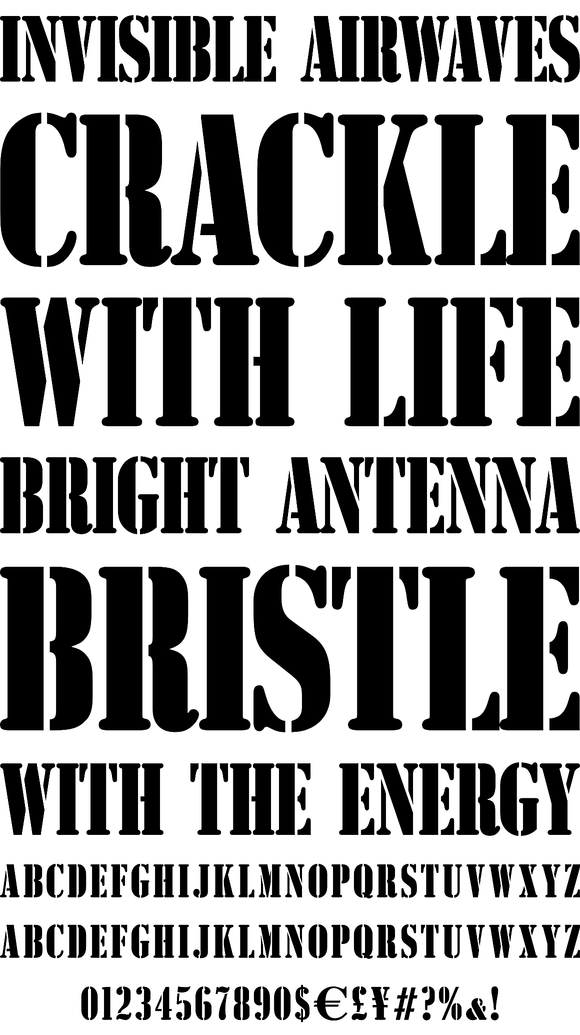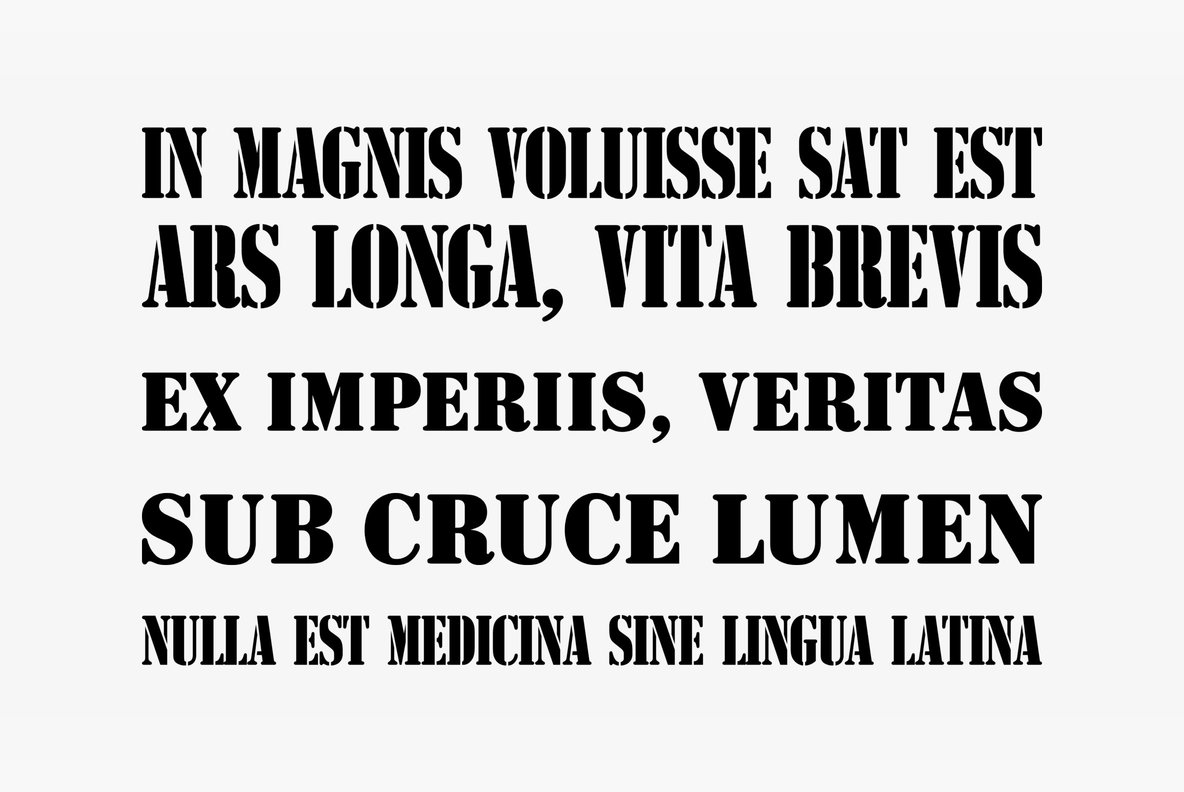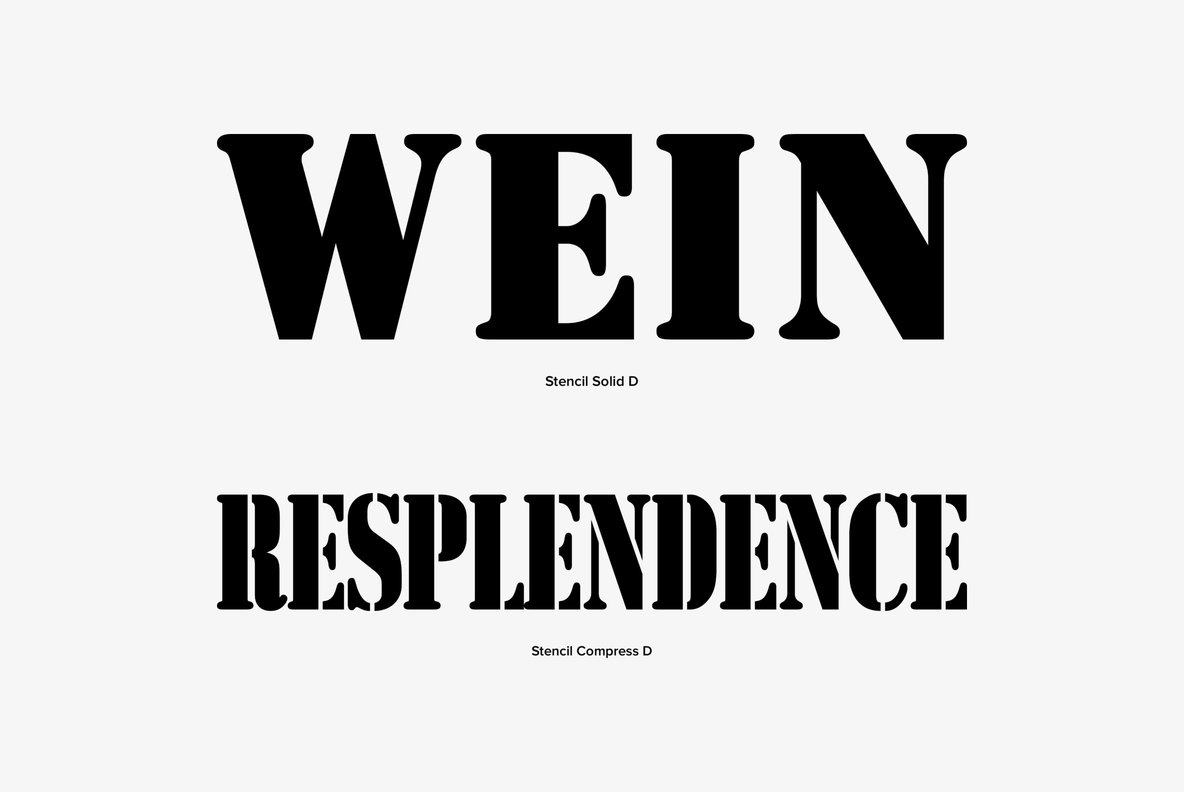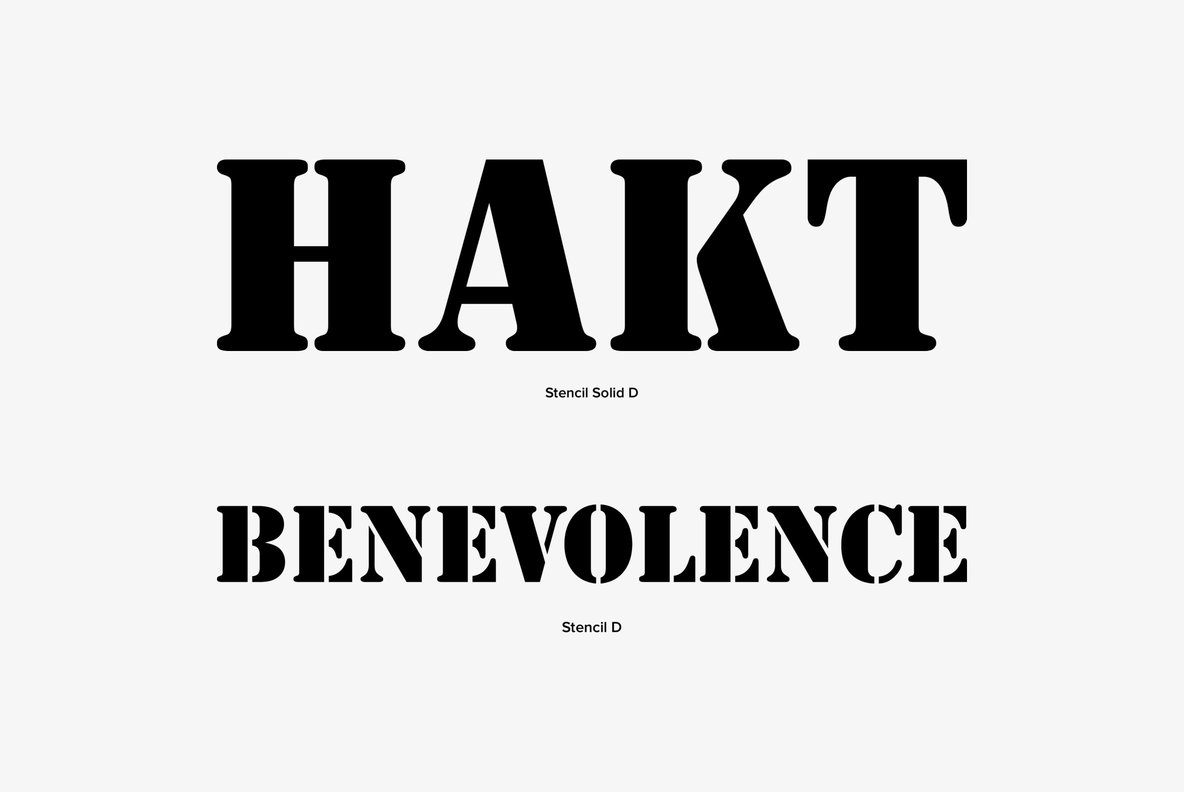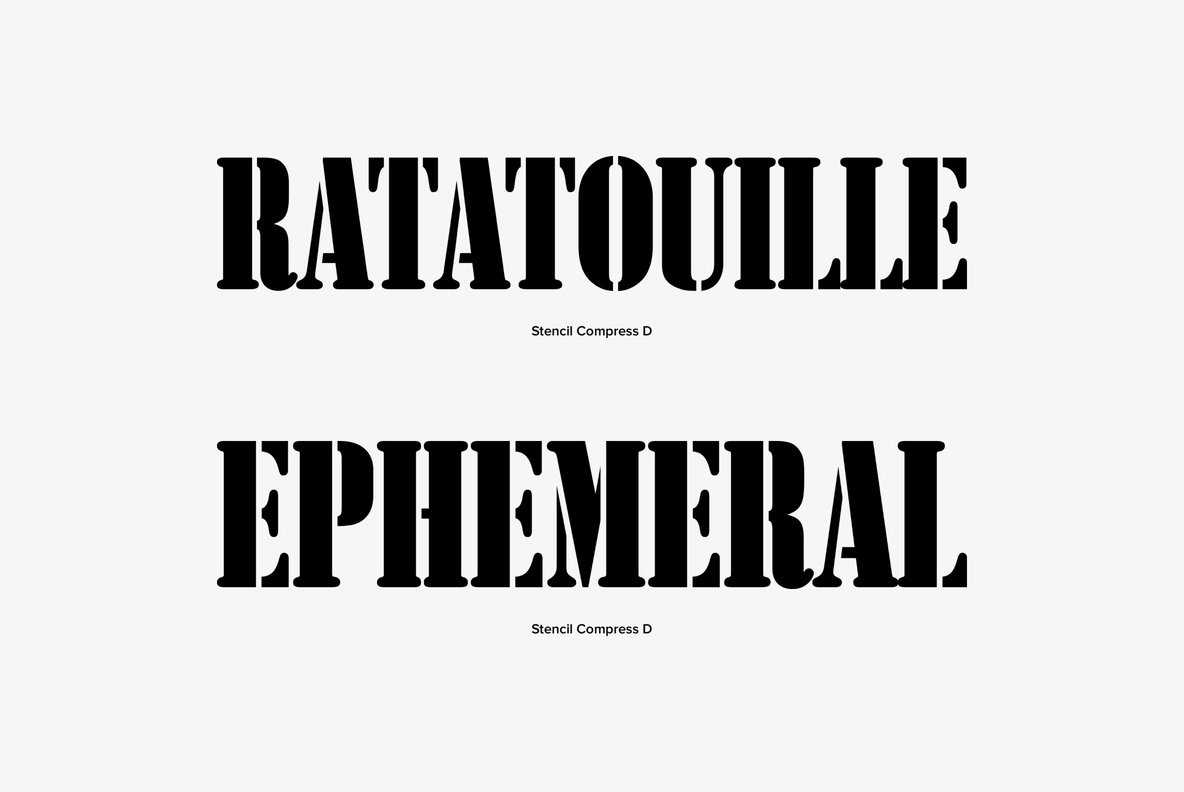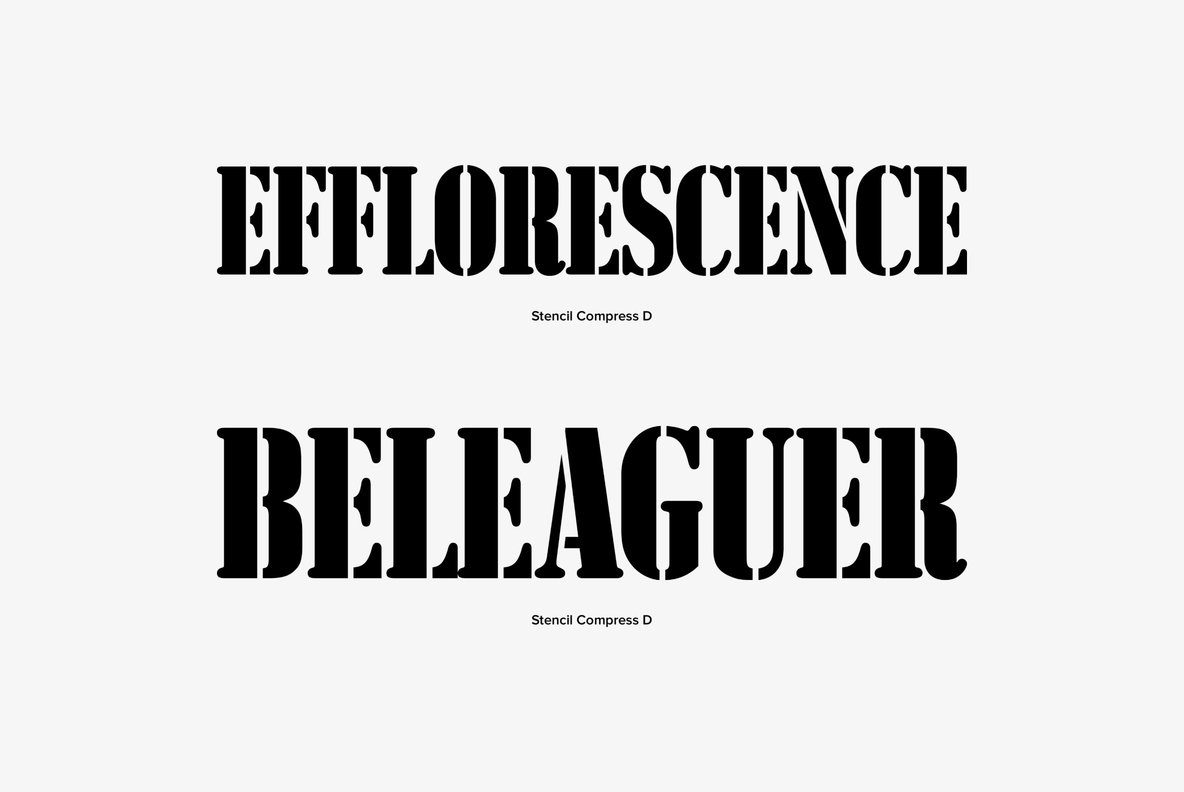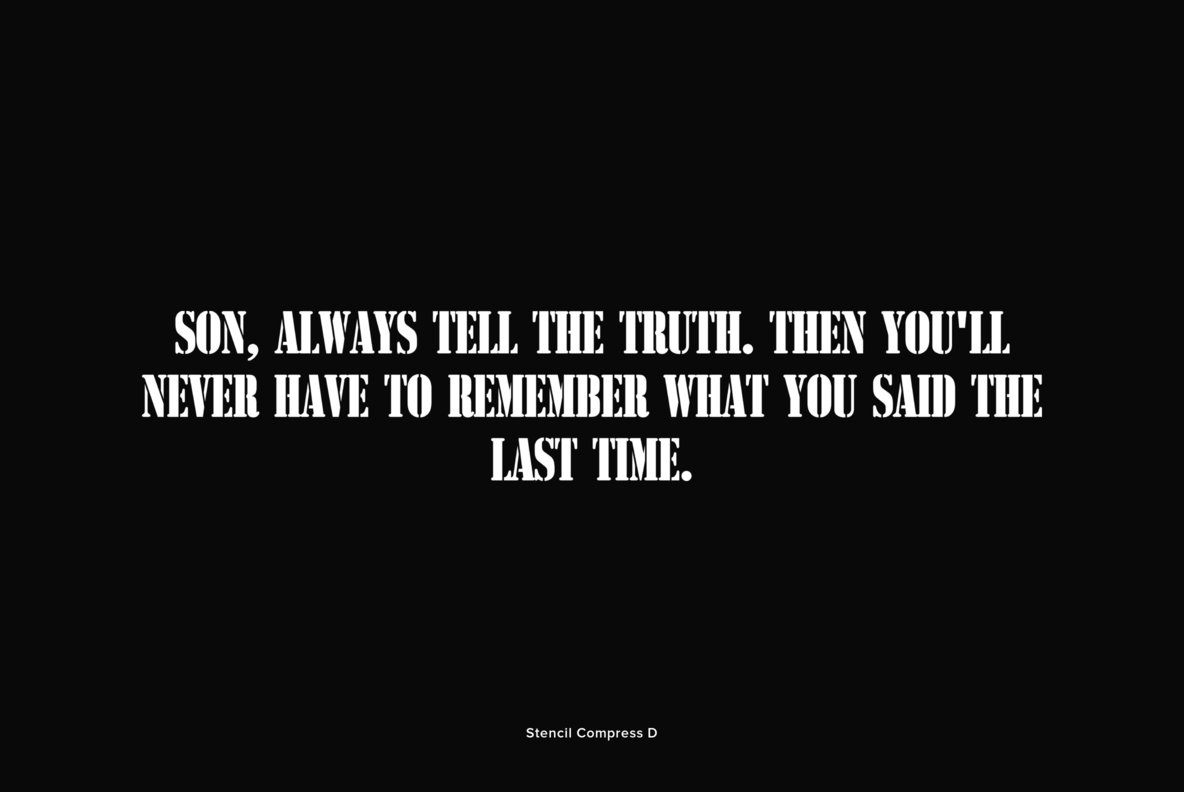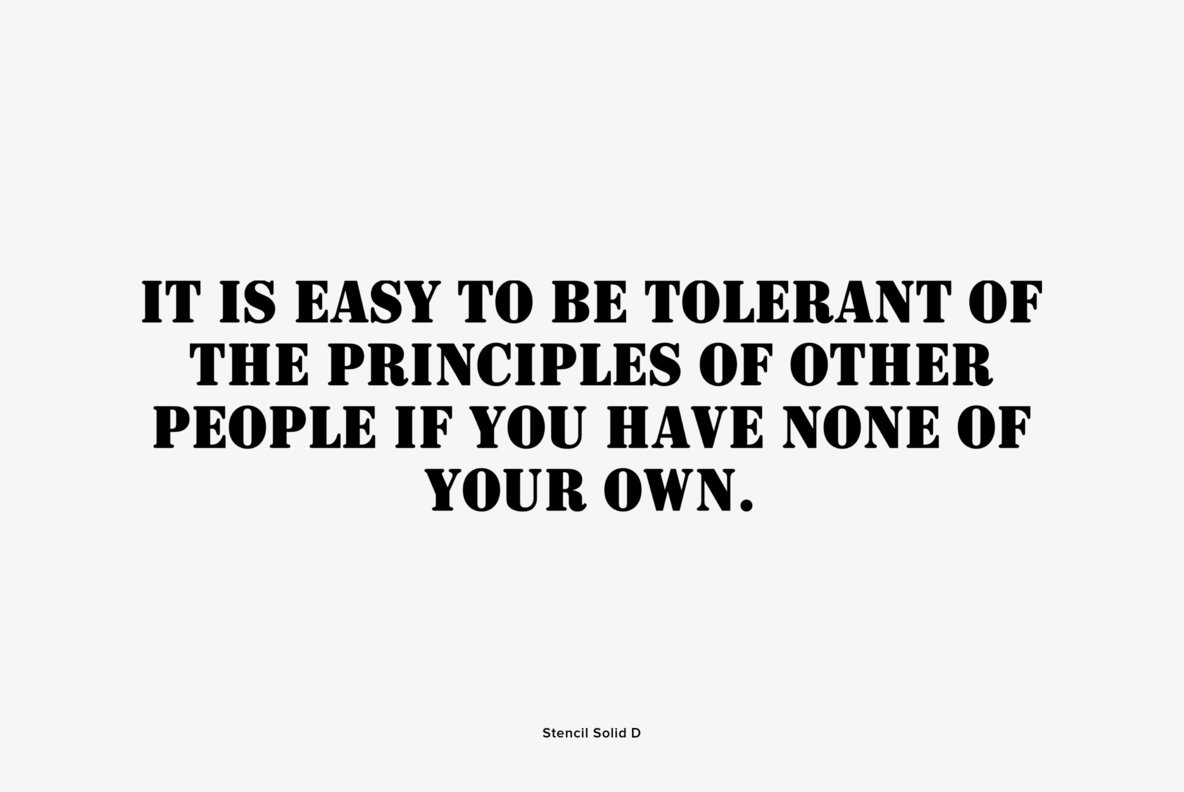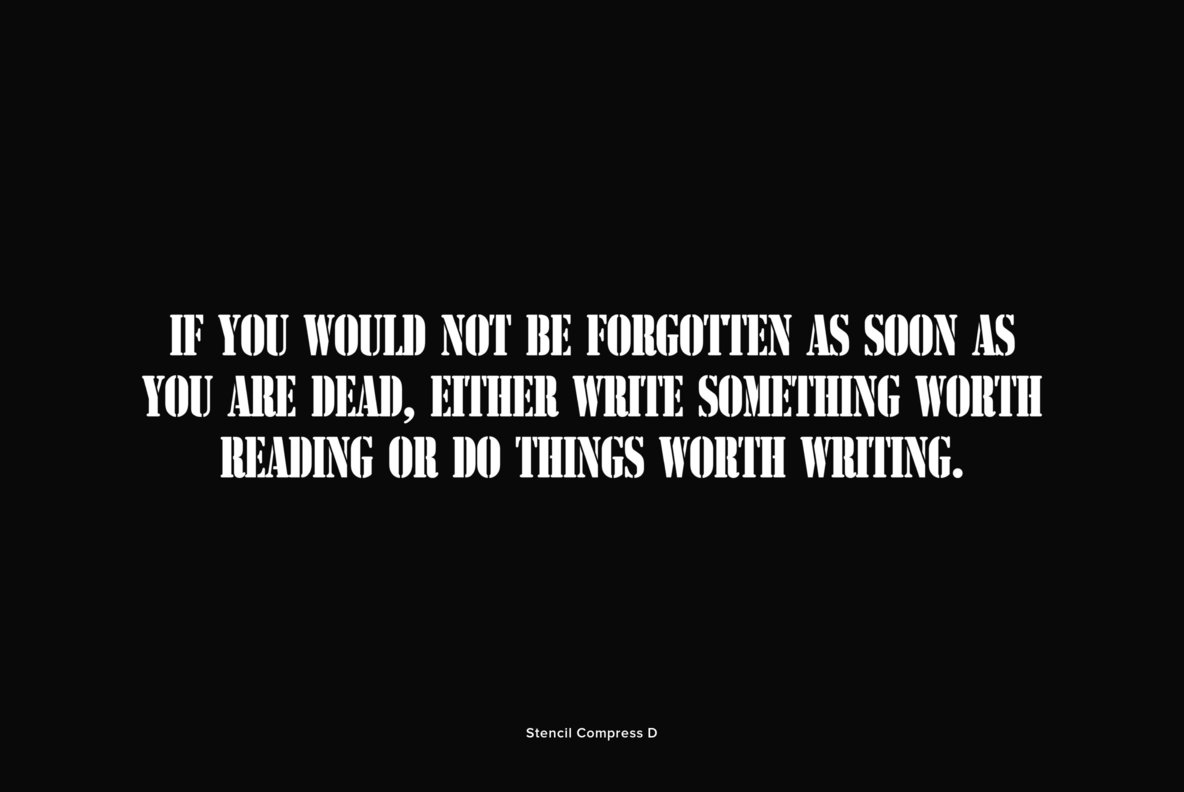
Stencil
Originally designed by Gerry Powell in 1938, Stencil is a well drawn and classic font design. This new family via URW contains a few extra display options, such as the bold, relief and a shadow options.